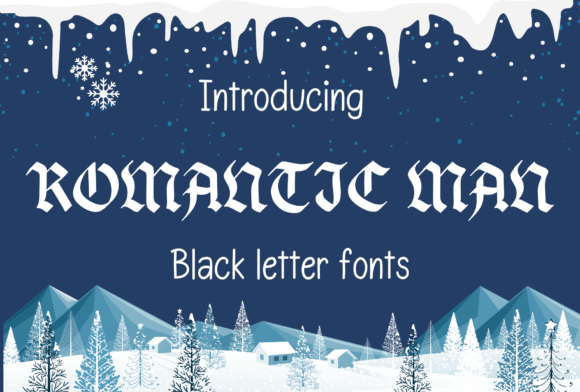
Embark on a typographic journey with Romantic Man, a font of boldness and thickness, inspired by the world of blackletter. This masterpiece by Bassoonartwork isn't just a font; it's a statement of individuality, a reflection of your creative spirit.
Dive into a world of possibilities with Romantic Man, where your designs take center stage. Its thick, bold strokes command attention, demanding to be seen and admired. Whether you're a seasoned designer or just starting out, Romantic Man is your weapon of choice for creating designs that leave a lasting impact.
With Romantic Man, your creative projects will radiate confidence and style. Its striking presence elevates logotypes, headlines, and corporate identities, making them stand out from the crowd. Let Romantic Man be your herald, announcing your brand's arrival in the world of design.
Romantic Man isn't just a font; it's an experience. Its captivating presence breathes life into posters, music, movies, games, and magazines. It's the perfect companion for your creative endeavors, adding a touch of boldness and intrigue that captivates your audience.
Join the ranks of creative visionaries who have discovered the power of Romantic Man. Embrace the boldness, revel in the thickness, and let your designs speak volumes. With Romantic Man, your creative dreams become reality, transforming your designs into works of art. Unleash the Romantic Man within you and watch your designs flourish.